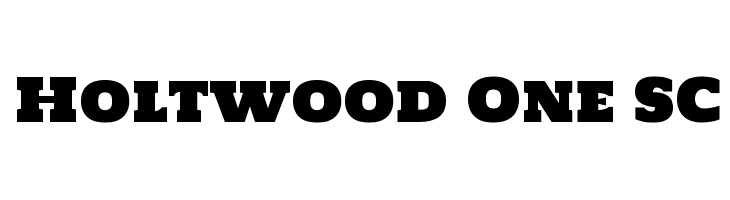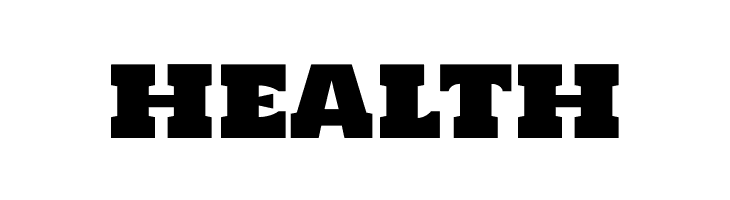
A bold slab serif font with strong, geometric shapes and minimal contrast.
A bold, robust slab serif font with strong, heavy strokes.
A bold slab serif font with strong, block-like serifs and high contrast.
A bold slab serif font with strong, block-like serifs and a vintage yet modern appeal.
A bold serif font with strong strokes and pronounced serifs, offering a modern yet classic look.
A bold, thick-stroked font with a strong and friendly presence.